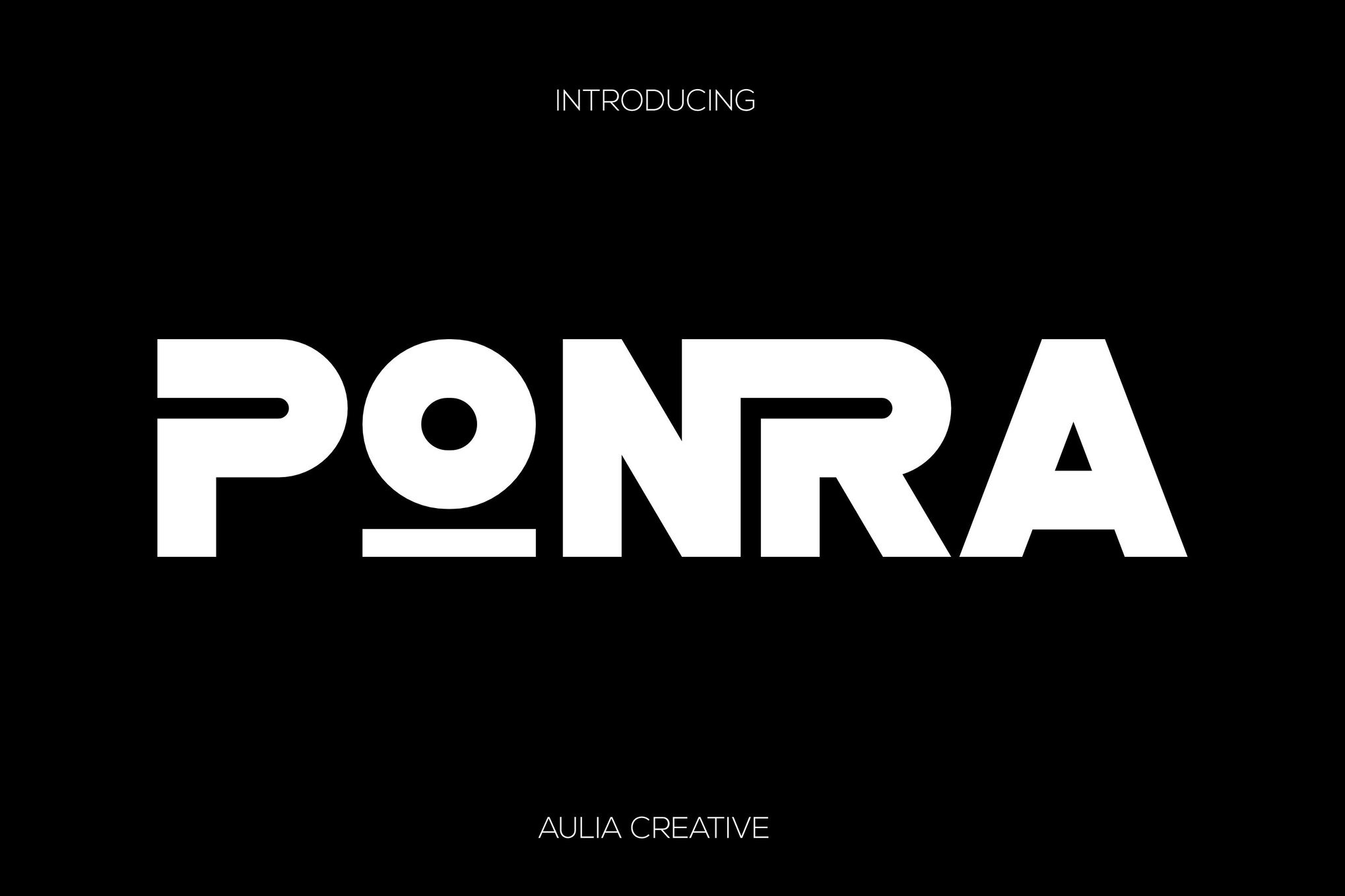
Ponra Font
Ponra Font is a bold and authentic sans serif display font designed to create strong visual impact with a modern and confident style. Featuring clean lines, powerful letterforms, and a striking contemporary appearance, this typeface is perfect for logos, branding, posters, headlines, packaging, and creative display projects. Its versatile and eye-catching design makes Ponra an excellent choice for designers who want typography that feels both professional and memorable.